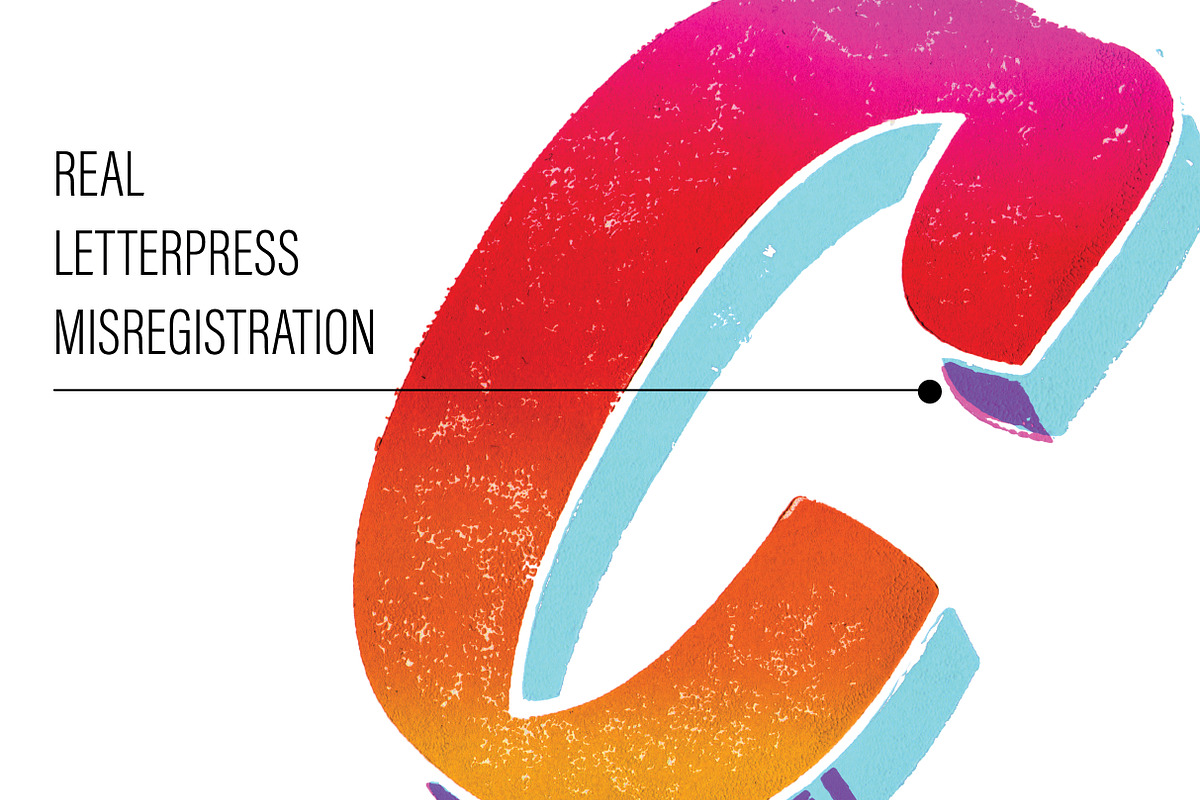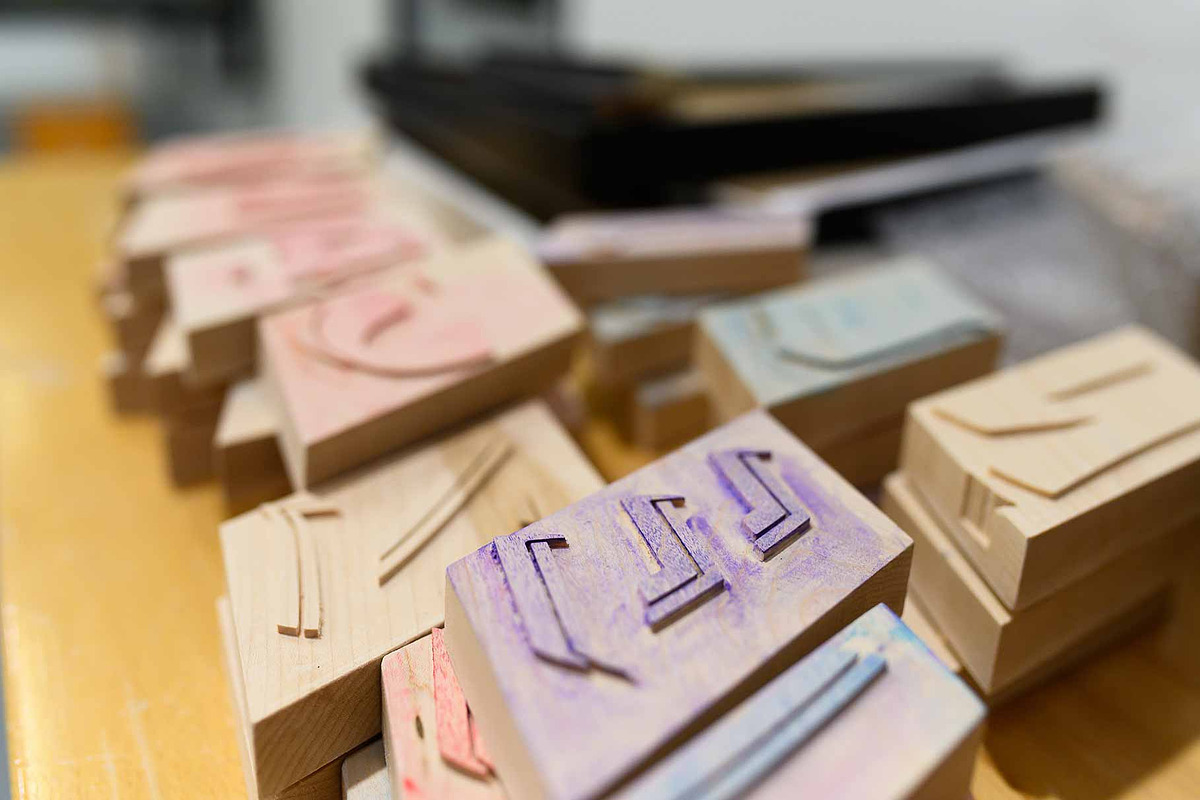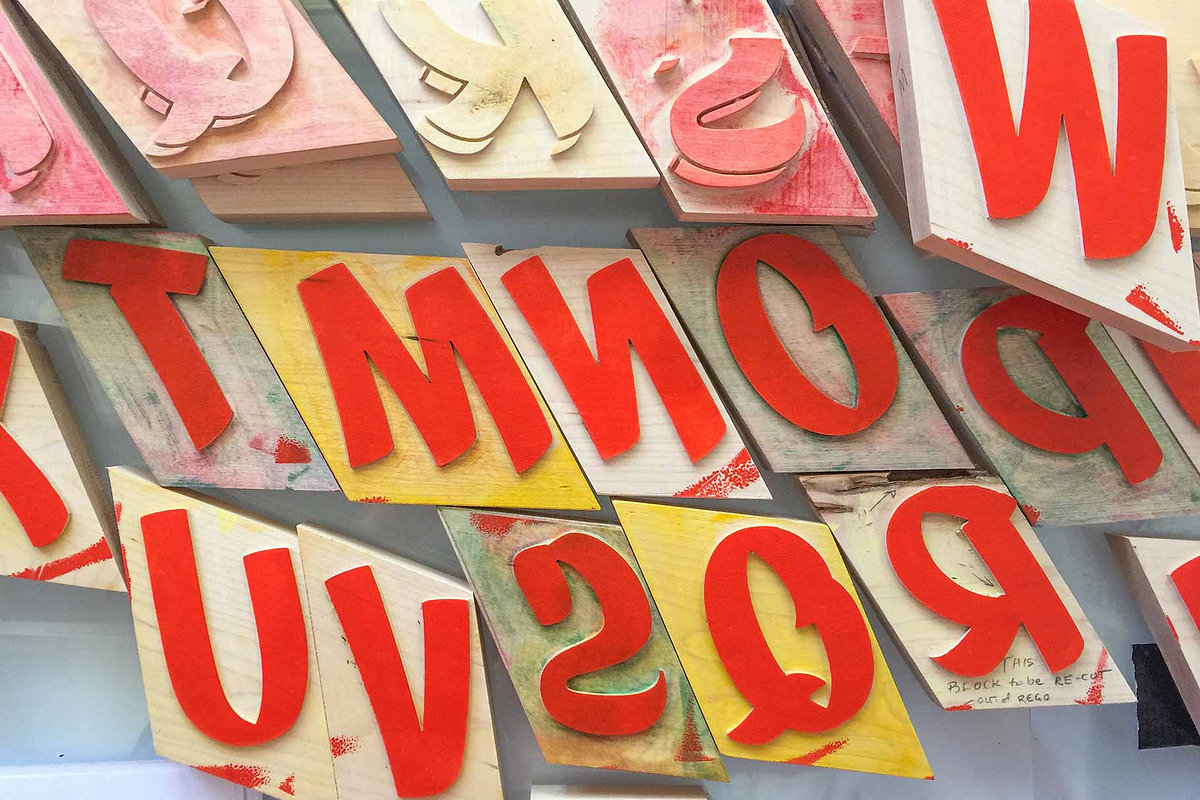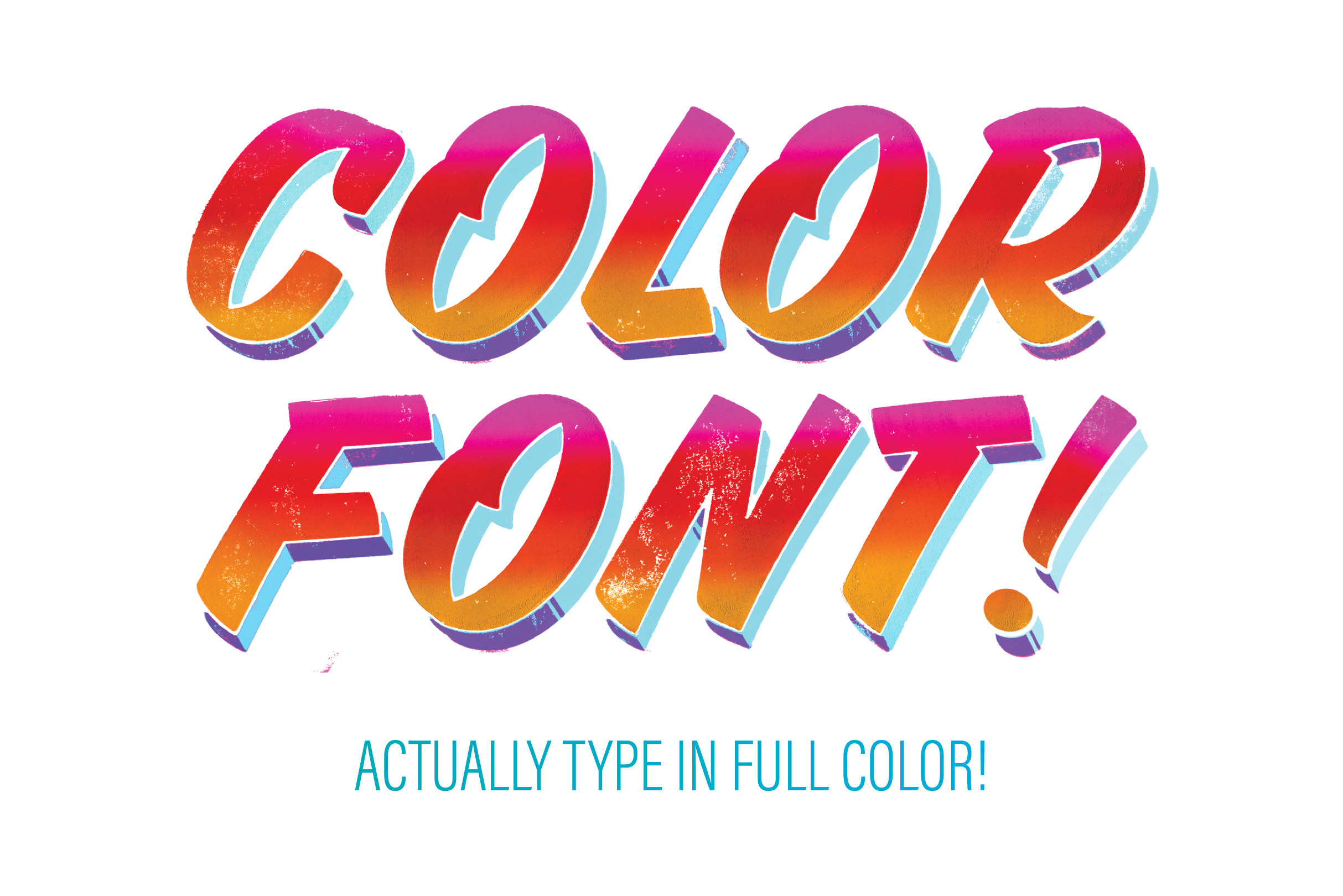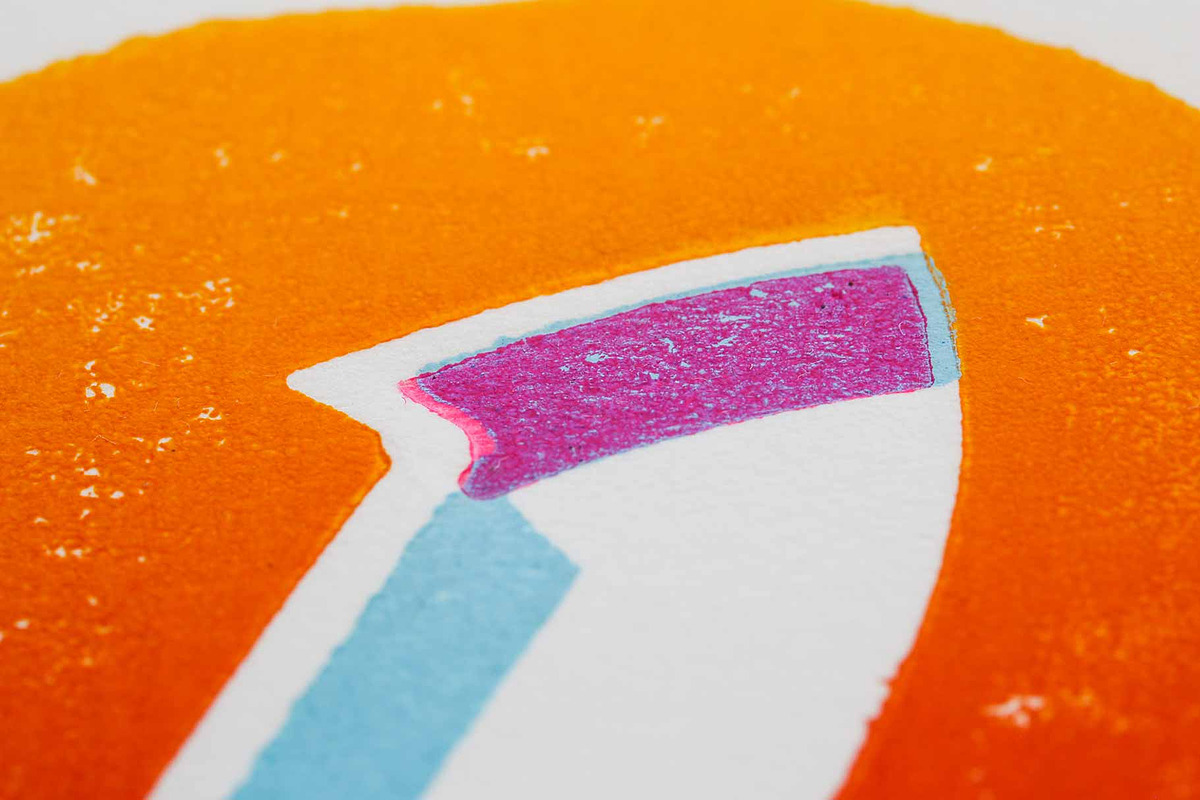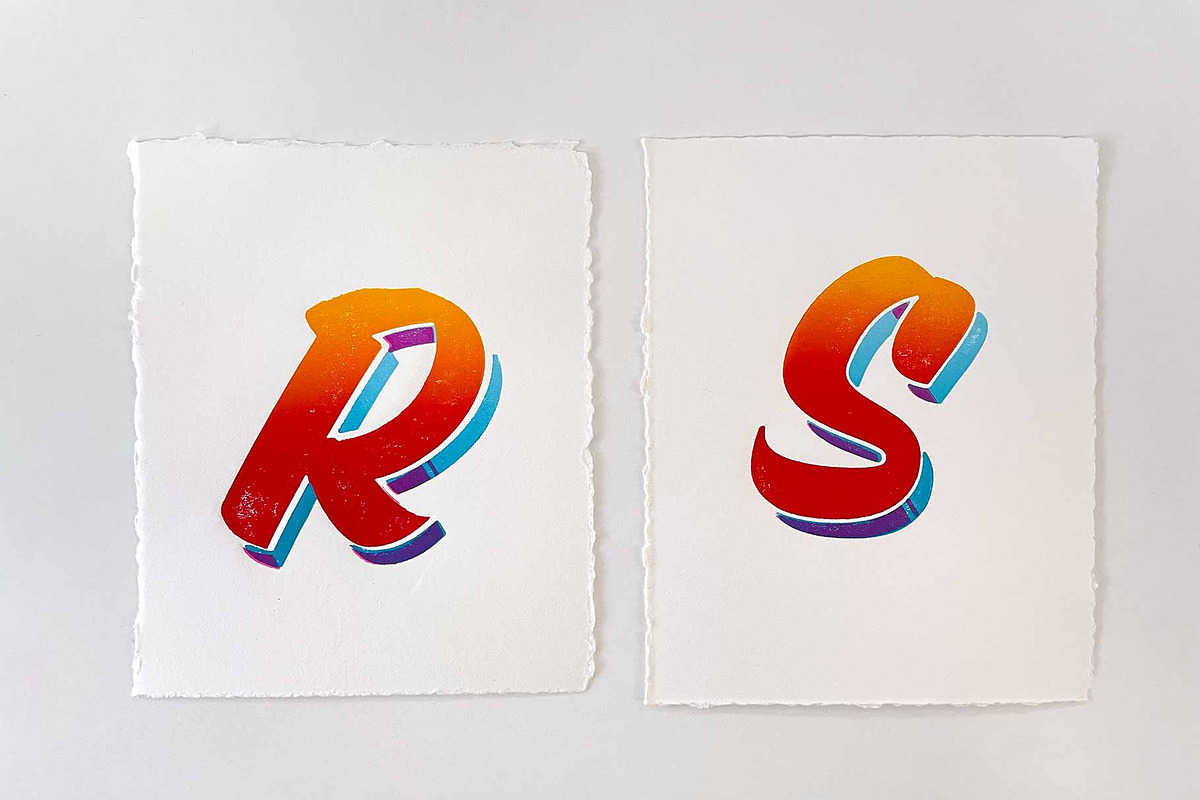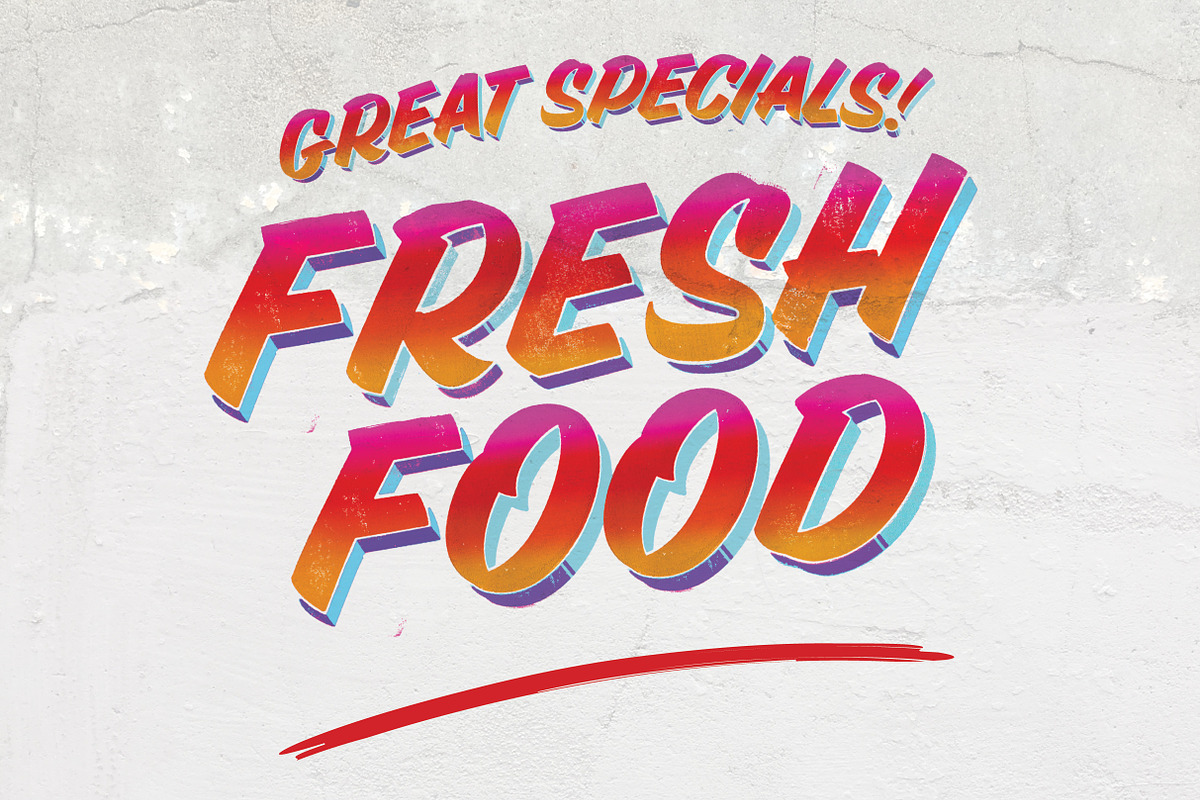
Cedric: Letterpress color font
This font is named Cedric Sunrise. It is created from scans of actual letterpress prints from my wood type font. It's a rare 'chromatic' font, which means there are three separate blocks—each printed in a different ink colour—producing extra colours on the press through overprinting. By downloading this font you get authentic wood type texture in a digital format! Original letterpress prints also available (email me!) Note: Font is capitals and punctuation only (no lower case).